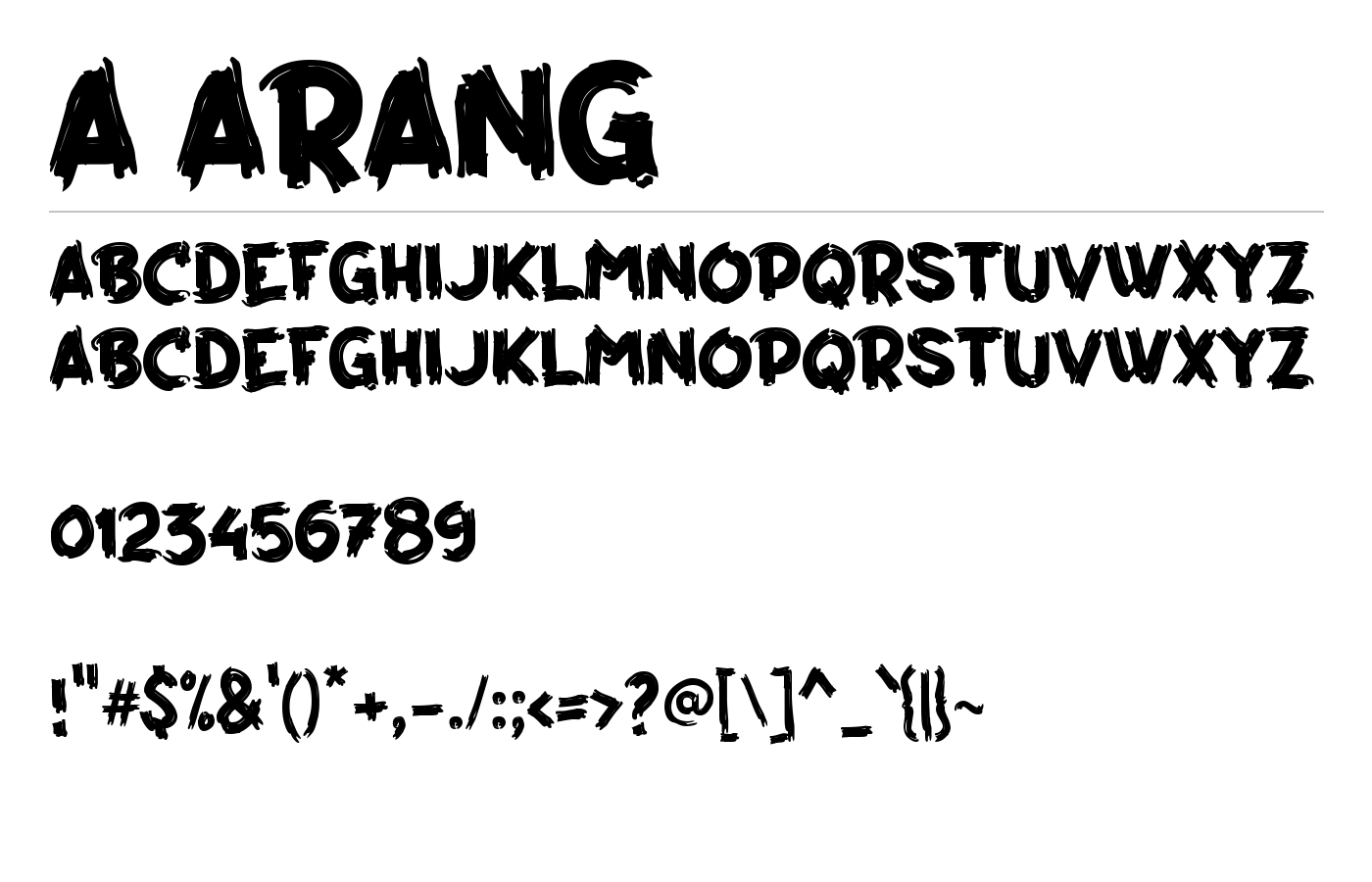
Arang is a bold, hand-drawn sans serif font with a rough, brushstroke texture that adds a dynamic and energetic feel to its uppercase letterforms. Its slightly condensed width and playful irregularities make it ideal for creative and informal designs, perfect for headlines, posters, and branding that want to convey a casual, lively personality. This font works best where a strong, artistic impact is needed rather than for extended body text.
a Arang Font